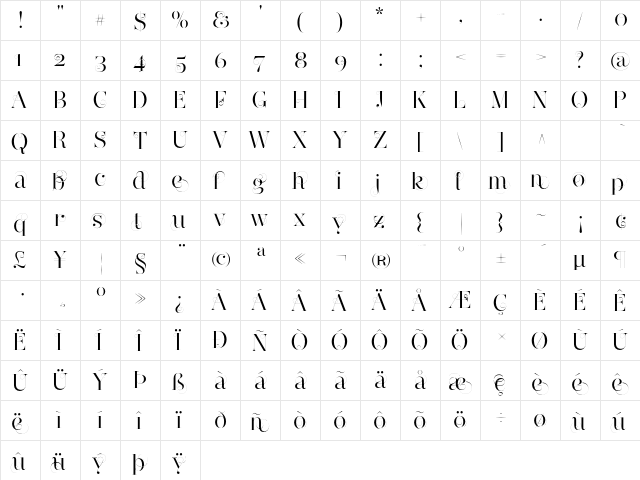
NarzissSwirls Regular
| Foundry | Hubert Jocham |
| Designer | Hubert Jocham |
Design Context for NarzissSwirls Typeface
NarzissSwirls brings ornamental detail and strong personality to headlines and identities, where visual impact matters more than quiet functionality.
Font Pairing: Pair with a clean neutral sans-serif for body copy to let NarzissSwirls's character lead without overwhelming the composition.
Pro Tip: Use NarzissSwirls exclusively at display sizes — it was designed to be seen, not read at length. Let a neutral companion handle body copy.